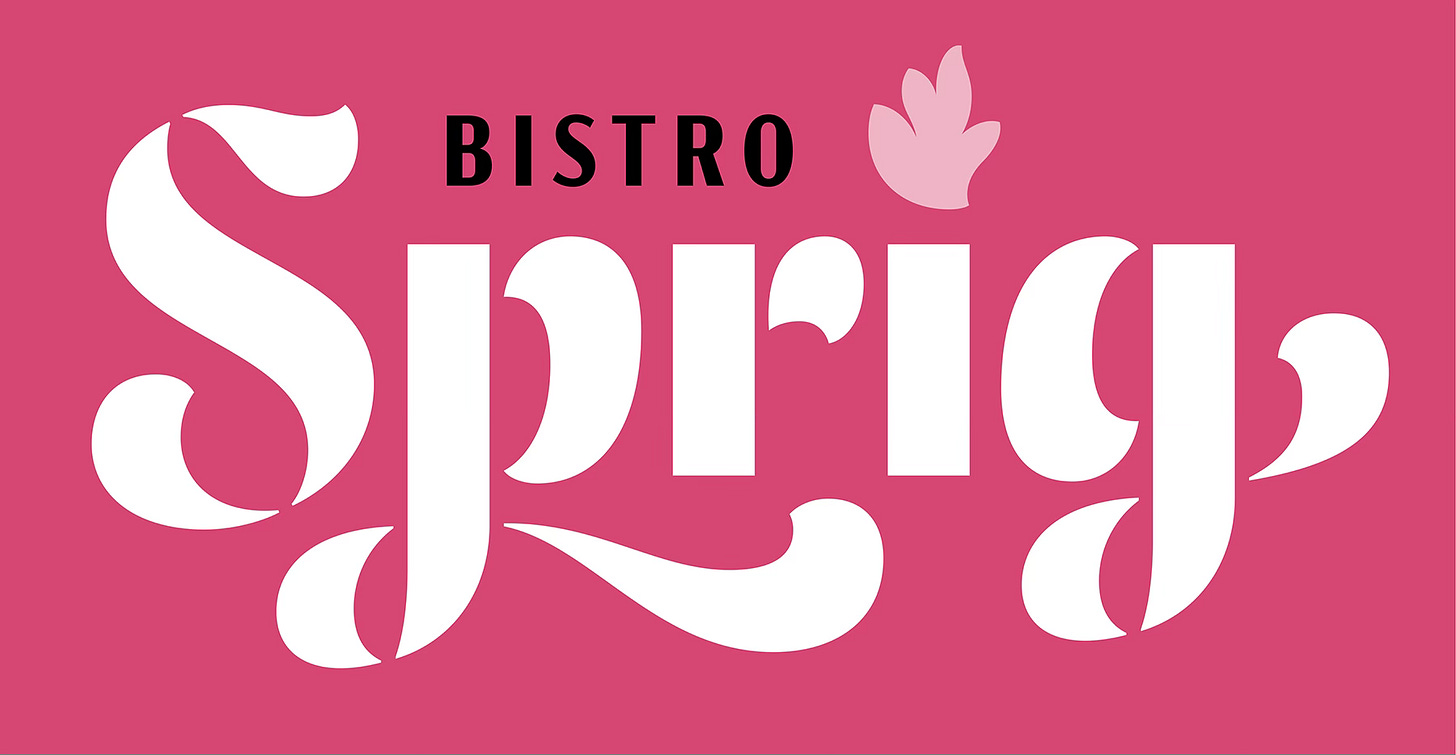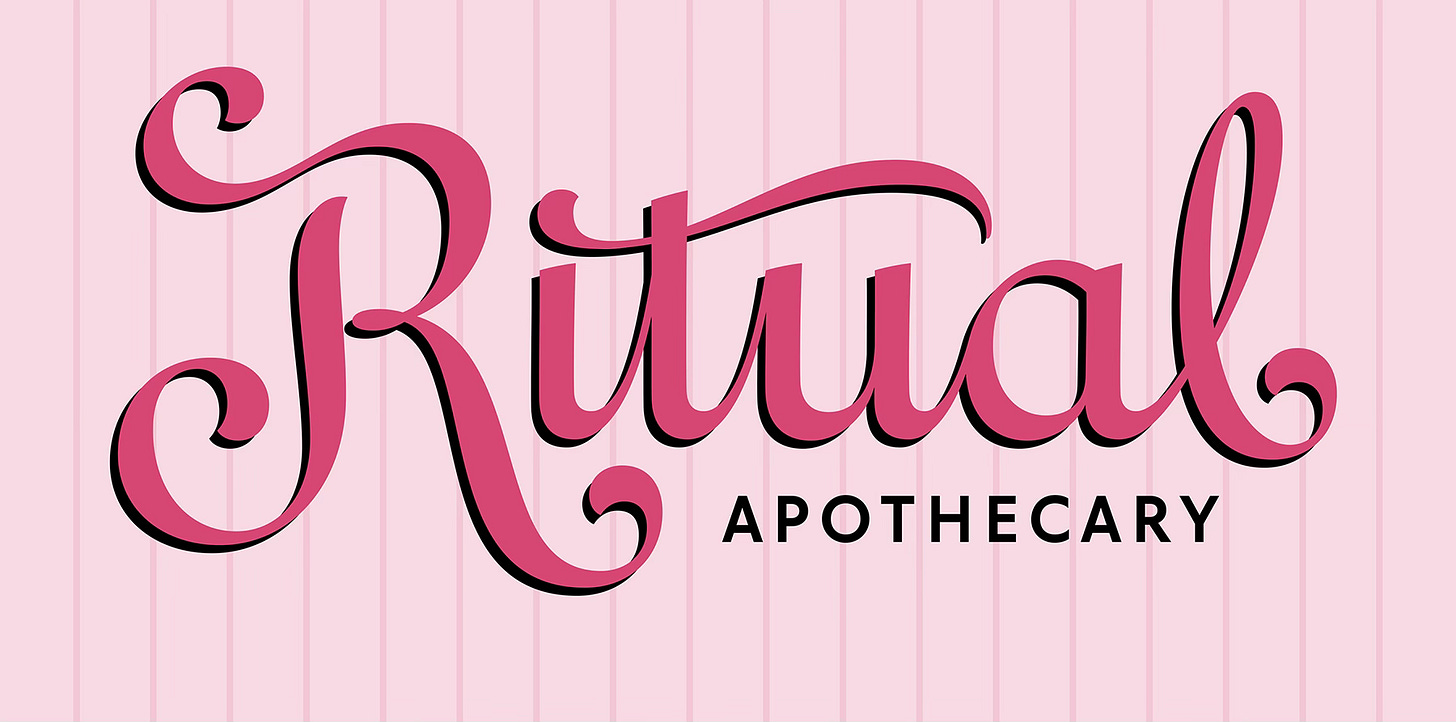
A Script Built for Brands
Customizing a classic cursive style for logos and branding
Few genres add as much personality and flair to logos and branding as script. Cursive letterforms are inherently full of idiosyncrasies that naturally translate into loads of character. You can doll them up for formal identities, or dress them down for more relaxed wordmarks and brand messaging—and French Script lettering is no exception.
Breaking French Script’s thin strokes instantly creates a chic stencil-like vibe
One of French Script’s biggest strengths is its upright posture, which makes the style especially easy to customize. Compared to slanted cursive, French Script allows you to add weight in a simple, consistent way without crowding negative spaces or distorting letterforms. That same structure also makes it suited for disconnected letters, stencil treatments, and other modifications.
French Script’s sturdy backbone is the perfect foundation for flourished strokes
Another advantage lies in the contrast between French Script’s clear, no-nonsense structure and its more flamboyant swashes. The letters’ vertical orientation provides a stable framework, making the forms ready to embellish with decorative strokes and flourishes.